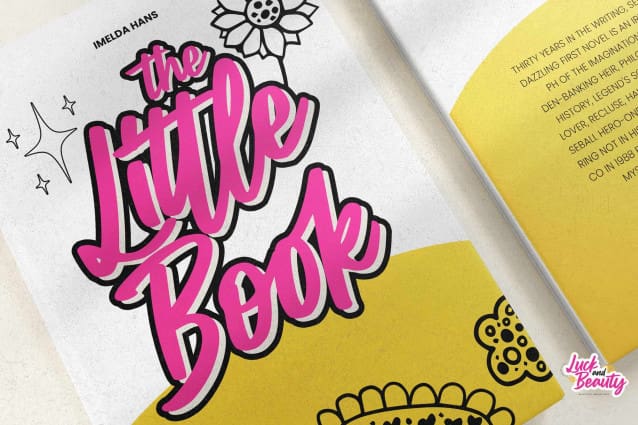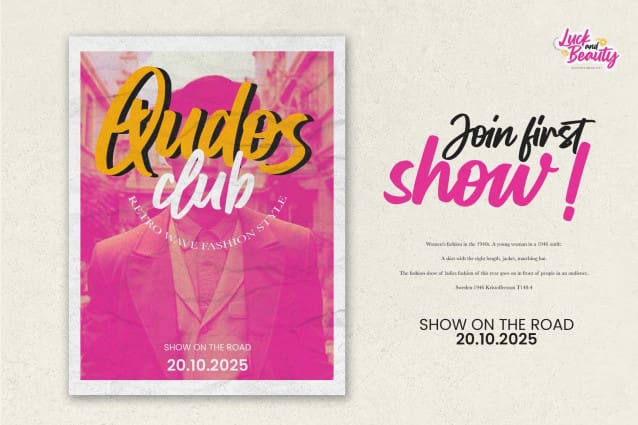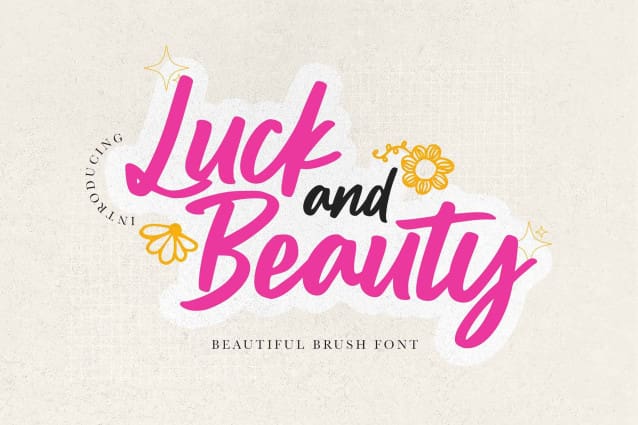
Luck And Beauty Font
Luck And Beauty Font – This is a Beautiful Brush Font, with brush style and beautiful style, this font is perfect for making a strong statement in your designs.
Add the bold and authentic character of this Font to your next project and capture the essence of the minimalist aesthetic.